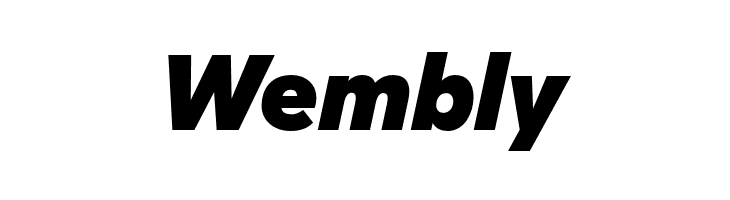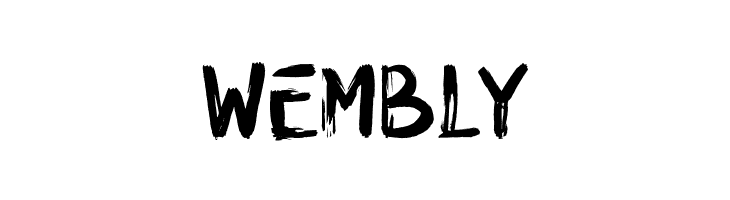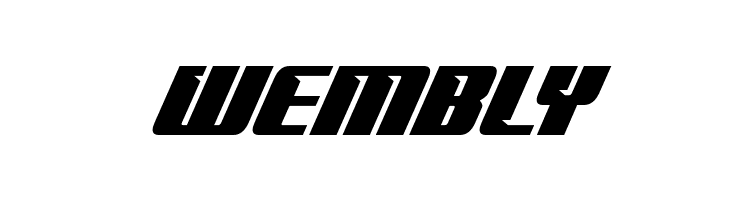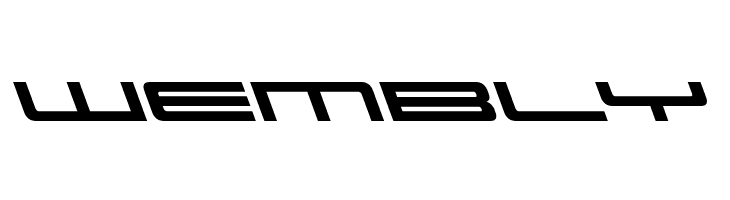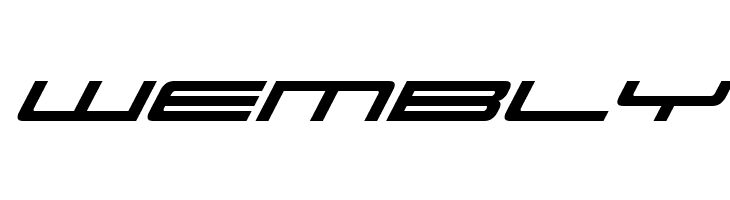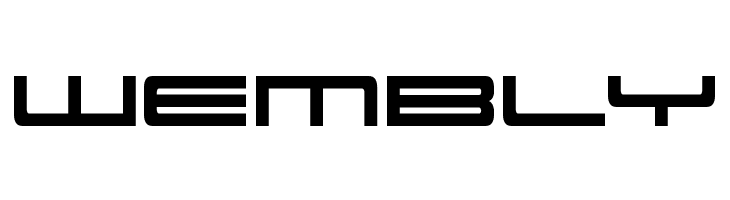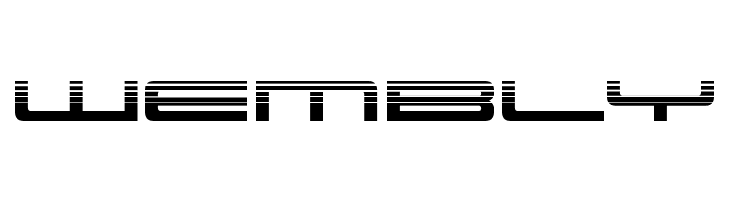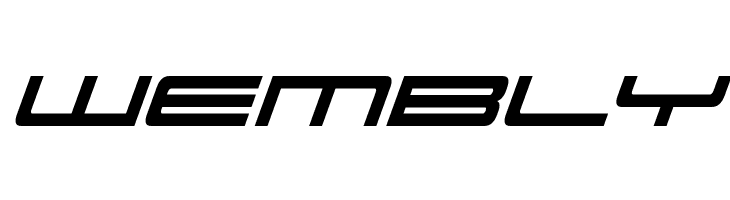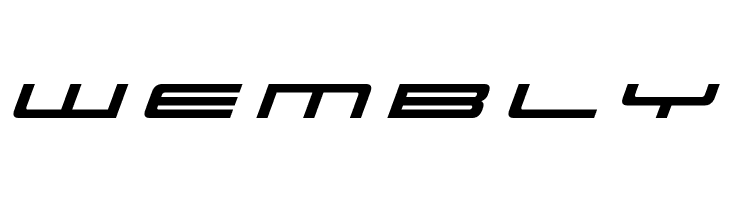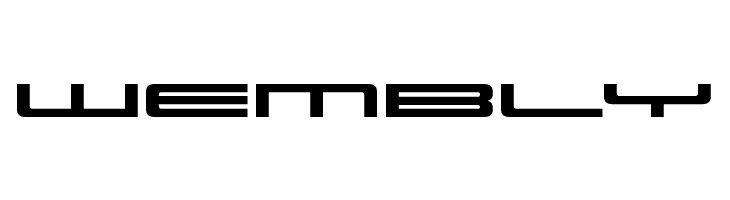
A bold, italic font with a strong, dynamic presence.
A bold, expressive brush-style font with a textured, hand-painted look.
A bold, italic, and dynamic font with high contrast and a modern feel.
A bold, italicized font with a dynamic and modern style.
A futuristic, angular font with a sleek, italicized design.
A sleek, italicized font with a futuristic and dynamic design.
A futuristic, geometric, and condensed font with sharp angles.
A futuristic font with a halftone pattern and geometric design.
A sleek, futuristic, condensed italic font with angular cuts and a modern feel.
A sleek, italic font with a futuristic and dynamic design.
A futuristic, segmented font with a digital and modern aesthetic.
A futuristic, geometric font with a digital and technological style.
A futuristic, geometric font with sharp angles and expanded width.
A futuristic, italicized font with a 3D effect and outlined characters.
A bold, futuristic font with geometric and angular letterforms.
A futuristic, 3D geometric font with outlined characters and a sleek, modern aesthetic.
A futuristic italic font with a halftone effect, conveying speed and modernity.
A bold, italicized font with a futuristic and dynamic design.
A futuristic, expanded italic font with sharp angles and consistent stroke thickness.
A bold, geometric sans-serif font with a modern and impactful style.
A bold, futuristic font with angular, geometric shapes and a modern aesthetic.
An elegant serif font with elongated letterforms and a blend of classic and modern elements.
A bold, high-contrast serif font with sharp serifs and dramatic style.
A bold, high-contrast serif font with dramatic, angular serifs.
A bold, modern font with thick strokes and a slightly condensed style.
A highly condensed sans-serif font with uniform strokes and minimal contrast.
A bold, modern font with thick strokes and tight spacing, perfect for impactful headlines.
A bold, italic font with a dynamic and energetic style.
A bold, italic font with a dynamic and modern style.
A sleek, italic font with a futuristic and dynamic style.
A futuristic, geometric font with sharp angles and clean lines.
A bold, condensed, and modern font ideal for impactful headlines.
A bold, expressive font with thick, rounded strokes and a playful, modern style.
A bold, heavy font with strong, uniform strokes and rounded edges.
A smooth, elegant script font with connected characters and a modern classic feel.